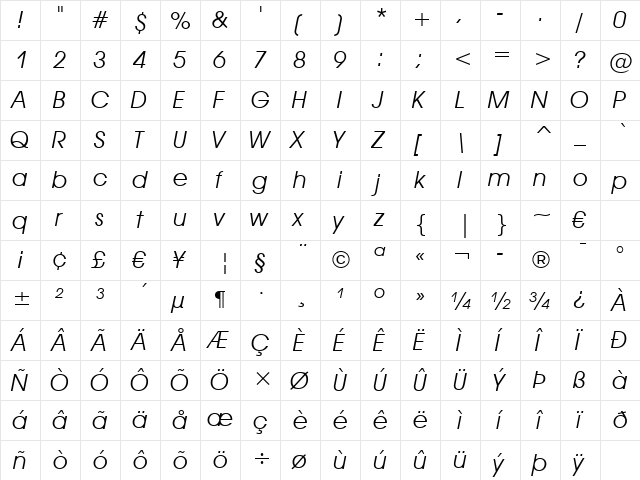
AvantGarde Bk BT Book Oblique
Design Context for AvantGarde Bk BT Typeface
AvantGarde Bk BT takes a measured approach to typography — its balanced proportions and neutral character make it a reliable workhorse for both digital and print work. The slanted form adds forward momentum and visual energy.